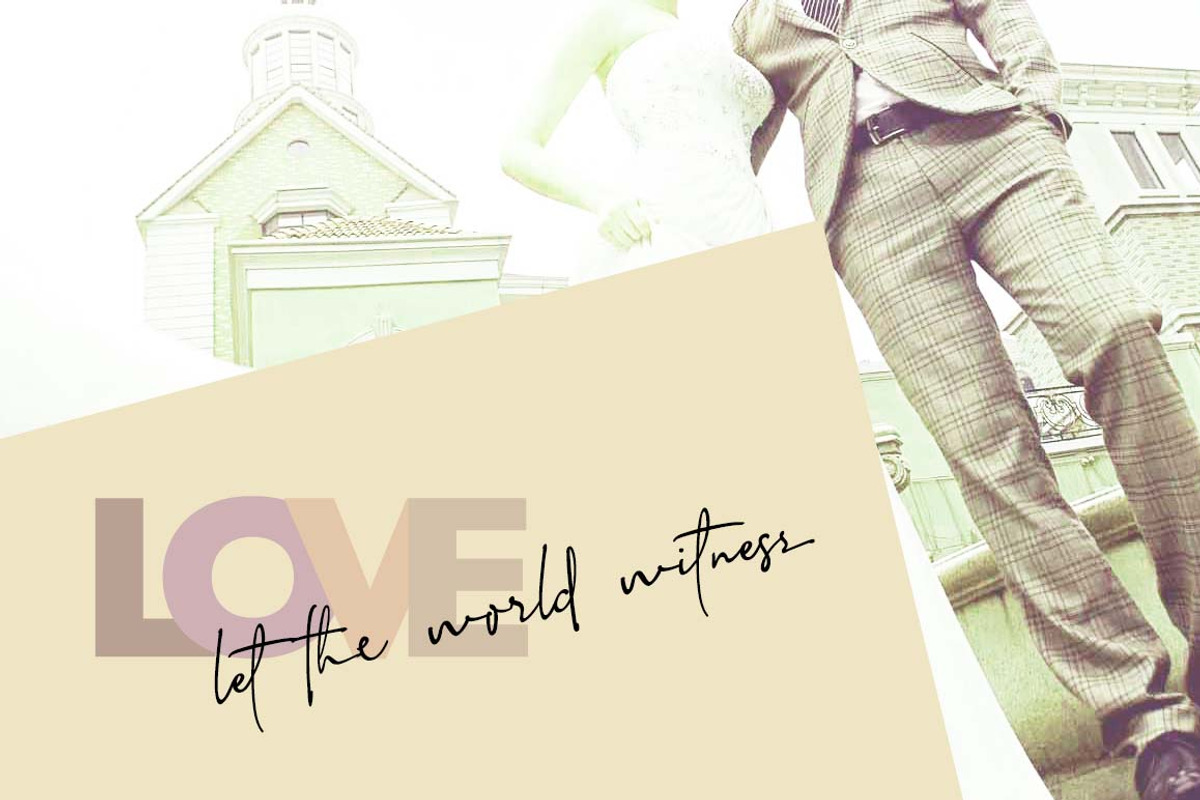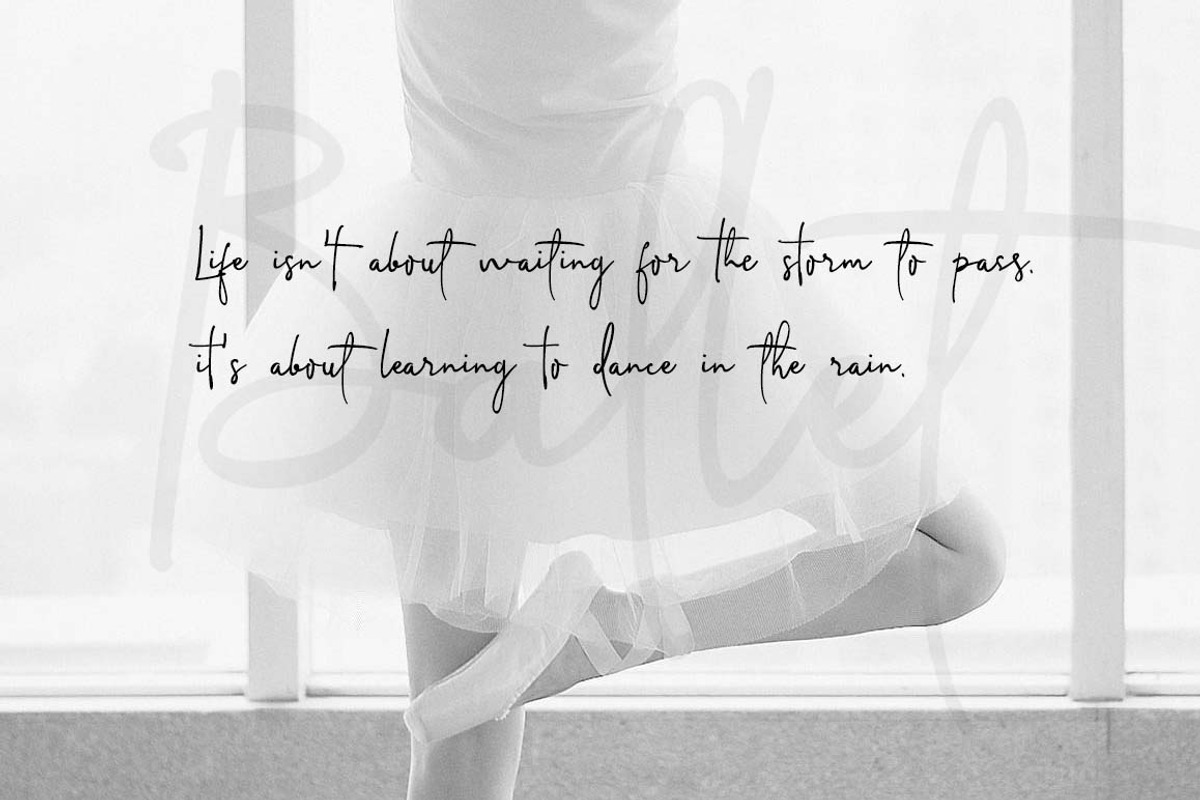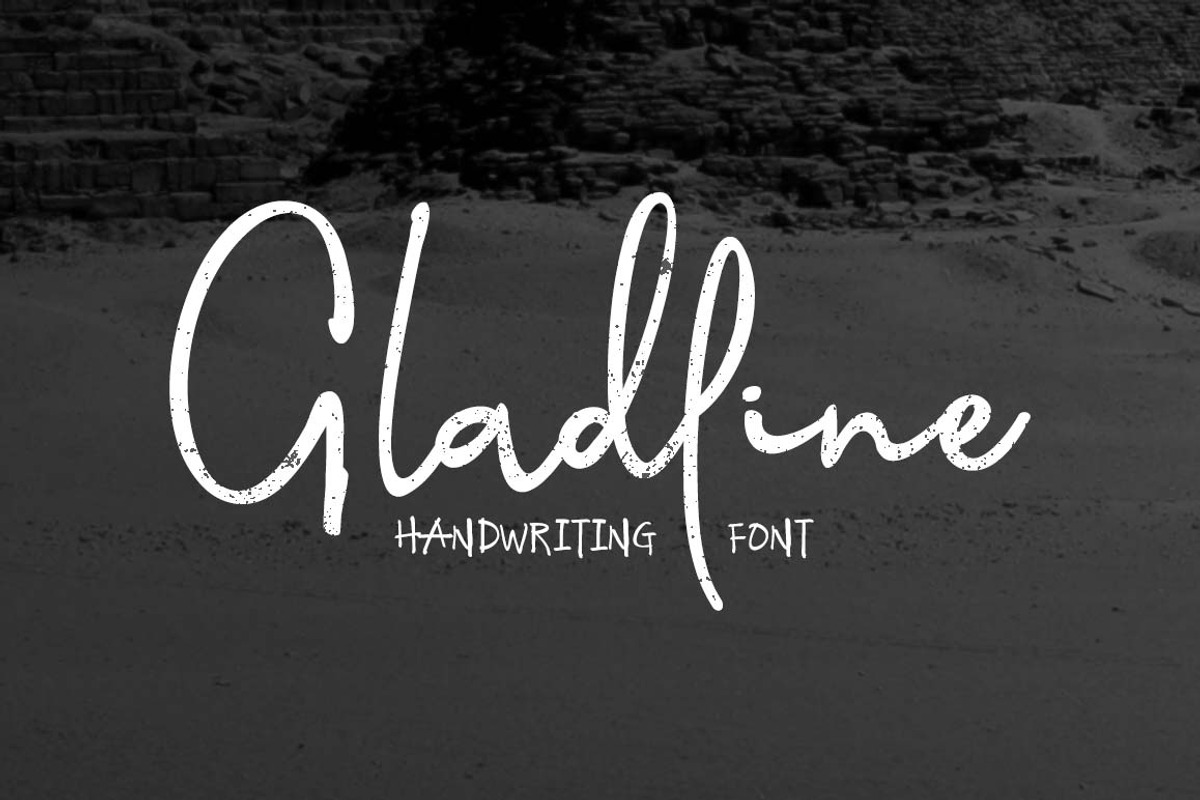
Gladline Script Font
Gladline Script Font is a set of handwritten font, the font style elegant, smart, it contains a variety of shape changes, and many ligatures, suitable for all kinds of ads, website, and banner title, also can be used for signature design.
Gladline Script Font by alphadesign fits naturally into Branding, posters, packaging, typography.